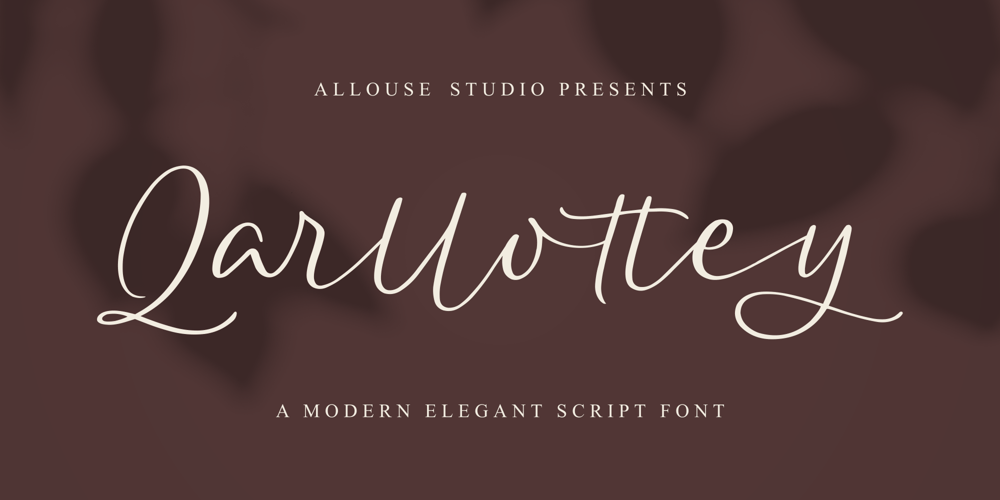
Qarllottey
Qarllottey font
Qarllottey Font Family was designed by Fachrizal Yusuf and published by Allouse Studio. Qarllottey contains 1 styles and family package options. Proudly Presenting, Qarllottey a Modern Elegant Script Font.Qarllottey is perfect for any titles, logo, product packaging, branding project, megazine, social media, wedding, or just used to express words above the background.Qarllottey also come with Multi-Lingual Support.Enjoy the font, feel free to comment or feedback, send me PM or email. Thank You!